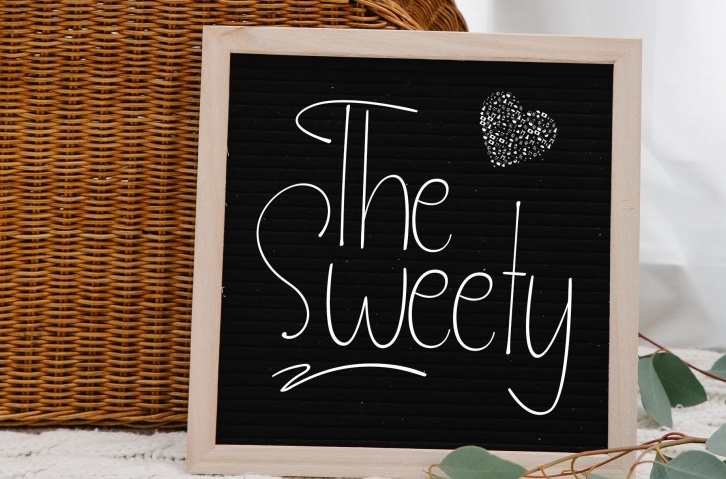
The Sweety is a fun and friendly handwritten font. Use it to turn any design idea into something that really stands out. Get inspired by its unique charms and create beautiful designs.